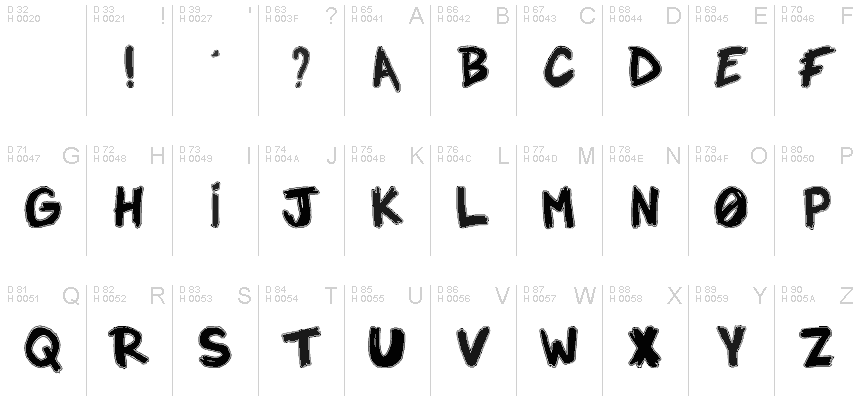
NOT A DROP LIGHT
"Not a Drop" is a dynamic and eye-catching brush font that exudes a bold, expressive flair. Designed by dcoxy Medina Gregory, this font showcases a striking combination of angular lines and fluid brush strokes, creating a captivating visual impact. Its bold weight lends a confident, impactful presence, making it well-suited for a variety of design applications, from packaging and branding to editorial layouts and event materials.
The unique character of "Not a Drop" allows it to seamlessly blend modern aesthetics with a touch of organic, handcrafted charm, making it a versatile choice for designers seeking to infuse their work with a distinctive, attention-grabbing style.